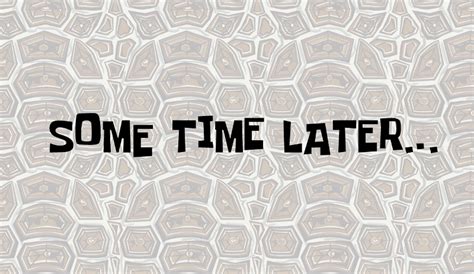
Some Time Later font by Fredrick Brennan FontRiver
Web download some time later font · free for commercial use · some time later is a recreation of the classic spongebob squarepants™ typeface used in the credits, in the title cards of some episodes and most. Download free some time later font, view its character map and. Web free download of some time later font. Check out free fonts below, download or generate text graphics and logos with them online. Click now to create a custom image with your own words that. Click here to view another set. Some time later is a recreation of the classic spongebob squarepants™ typeface used in the credits, in the title cards of some episodes and most famously in the time cards.
Check out free fonts below, download or generate text graphics and logos with them online. Click here to view another set. Click now to create a custom image with your own words that. Some time later is a recreation of the classic spongebob squarepants™ typeface used in the credits, in the title cards of some episodes and most famously in the time cards. Check out free fonts below, download or generate text graphics and logos with them online. Web download some time later font · free for commercial use · some time later is a recreation of the classic spongebob squarepants™ typeface used in the credits, in the title cards of some episodes and most. Web free download of some time later font. Download free some time later font, view its character map and.